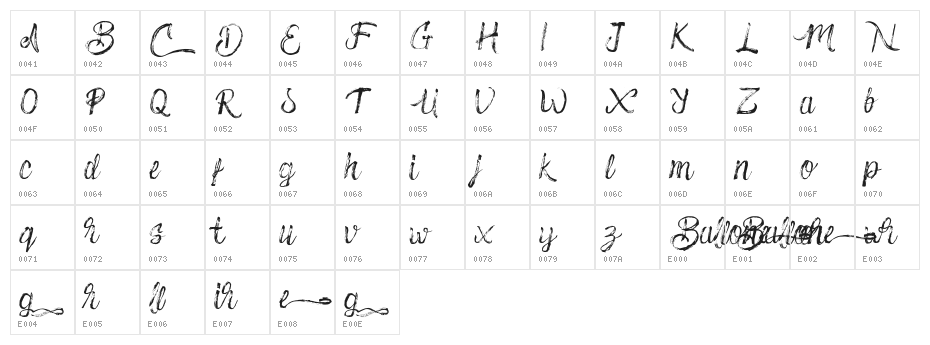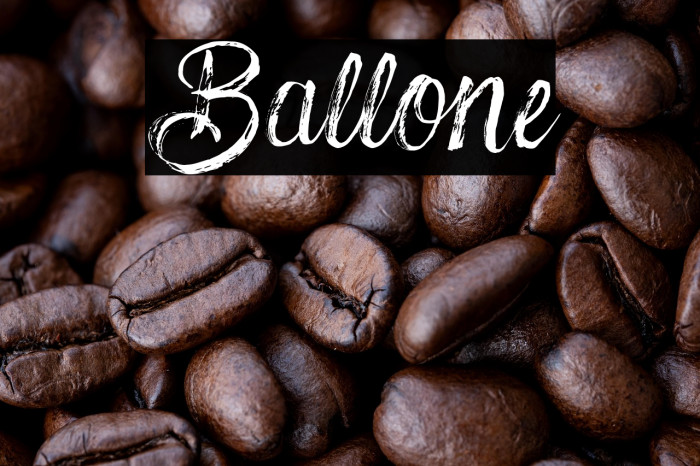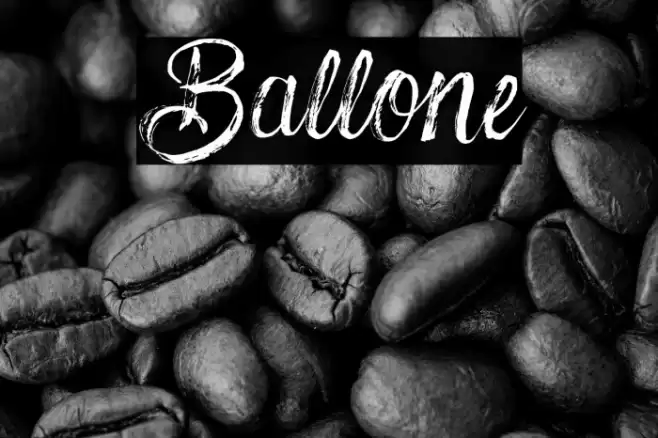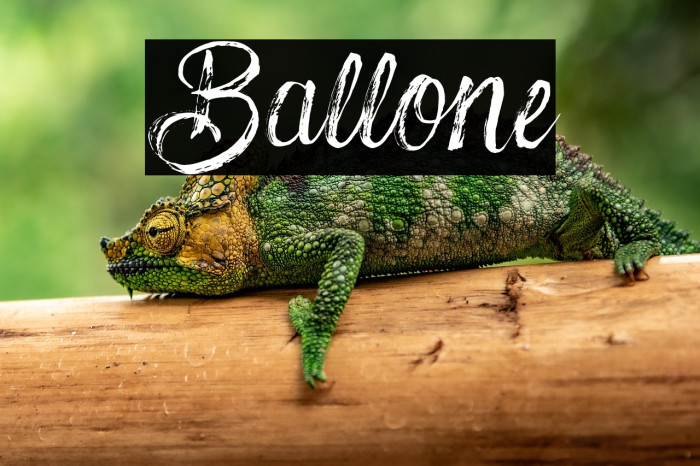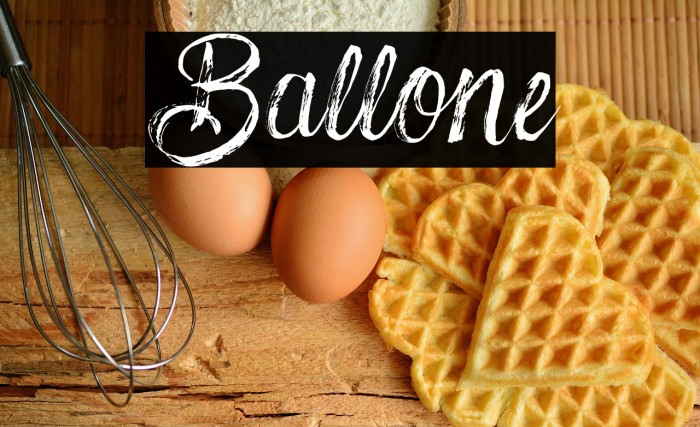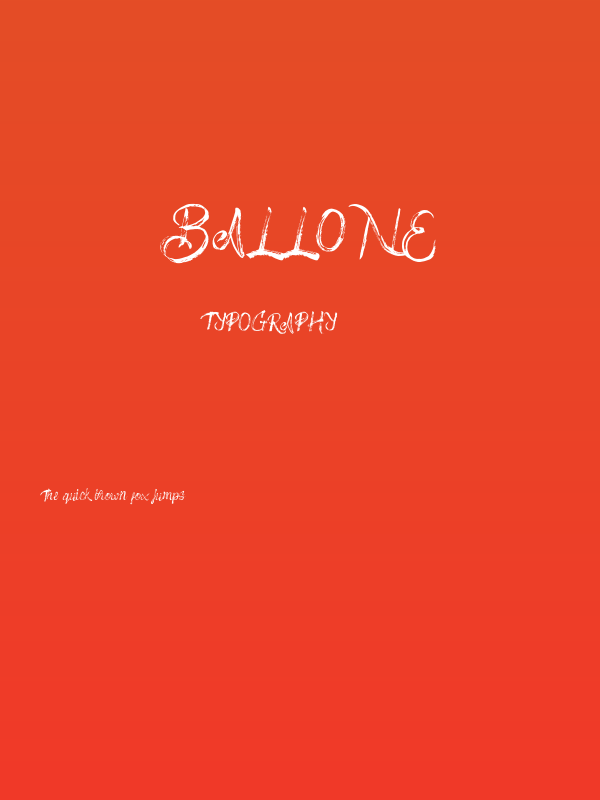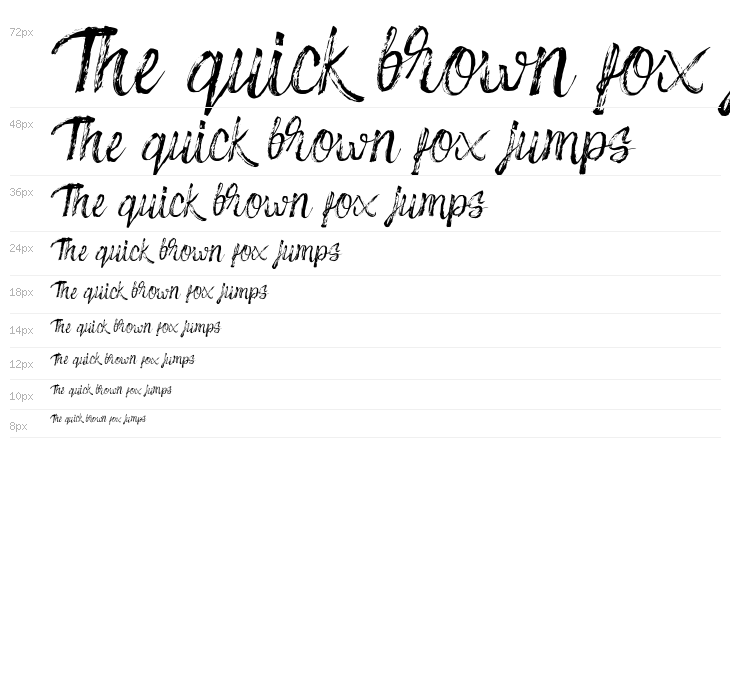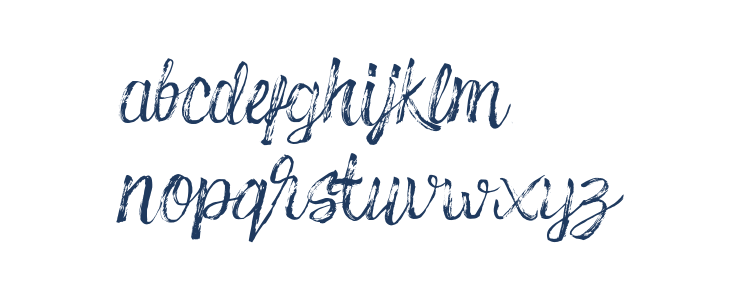
Ballone Font
Ballone Description
This font features a dynamic and expressive brush script style, characterized by its bold, sweeping strokes and textured appearance. The letters exhibit a hand-painted quality, with varying thickness that adds a sense of movement and energy. The uppercase and lowercase letters maintain a consistent flow, while the numbers and special characters integrate seamlessly into the overall design. The rough edges and irregularities give it a raw, artistic feel, making it ideal for projects that require a personal touch or a creative flair.
| Proposed Projects | Ideal for artistic projects, branding, posters, invitations, and any design requiring a personal, creative touch. |